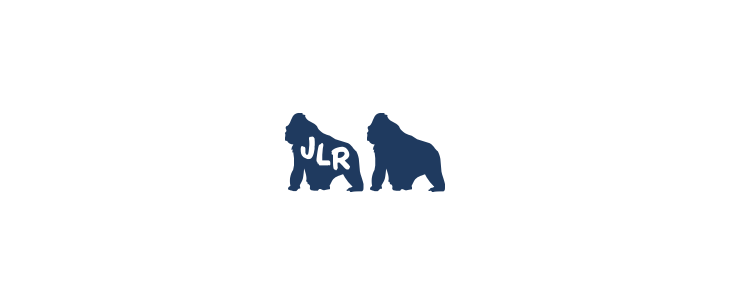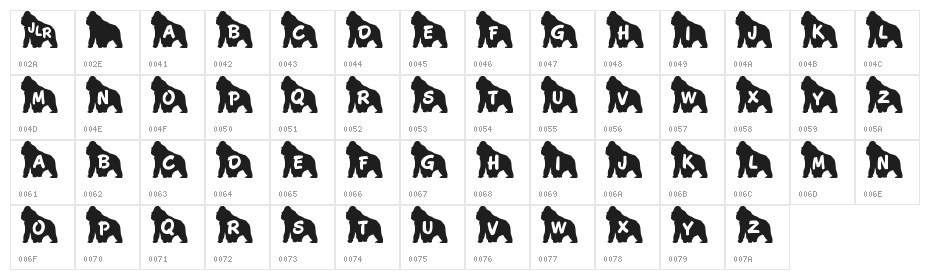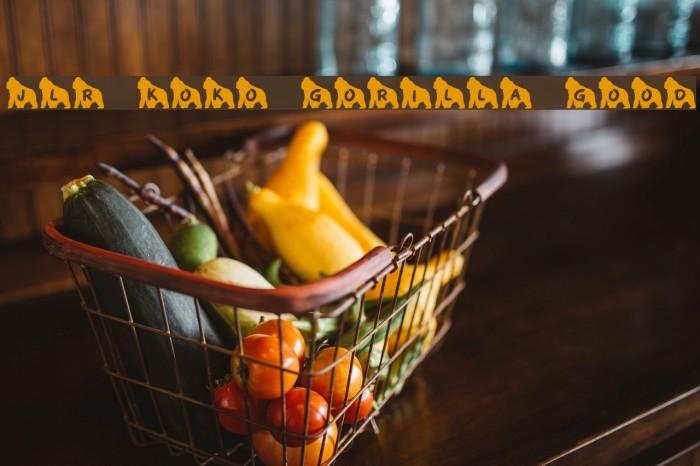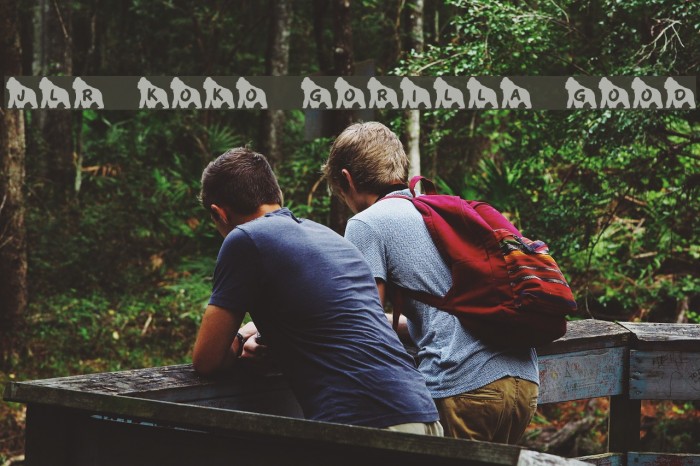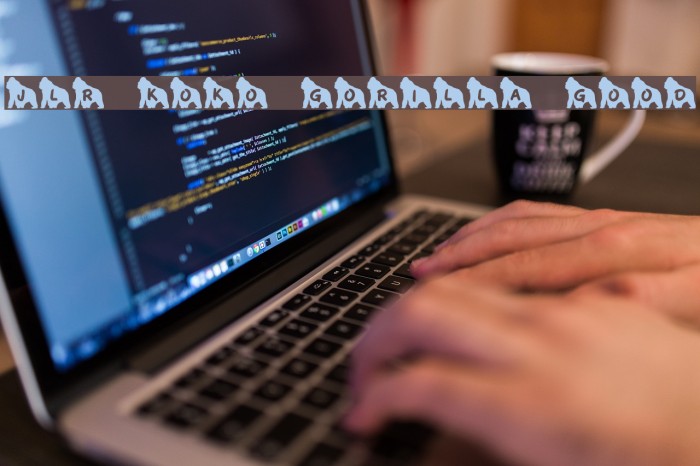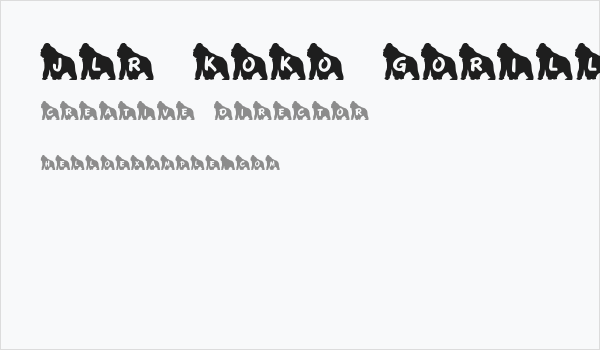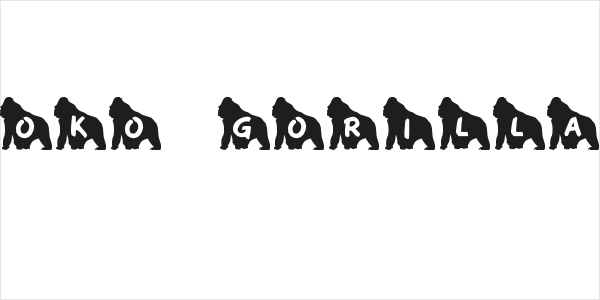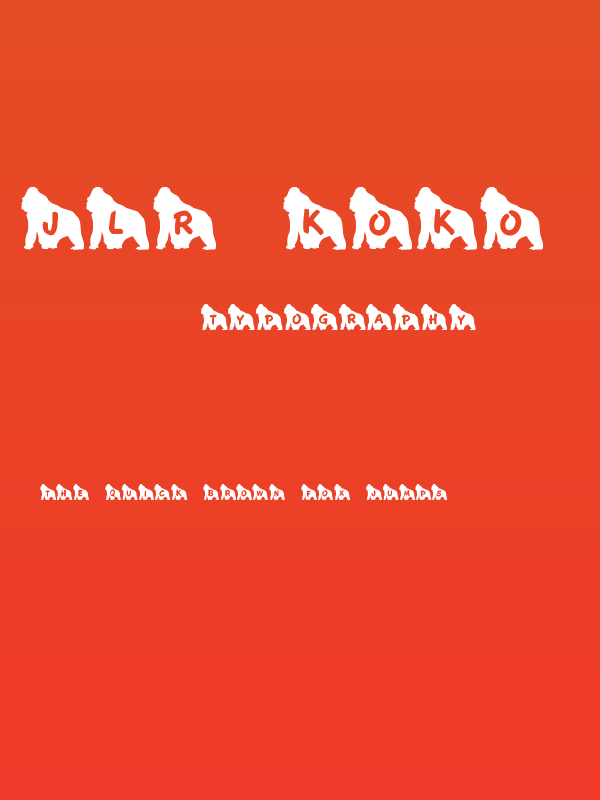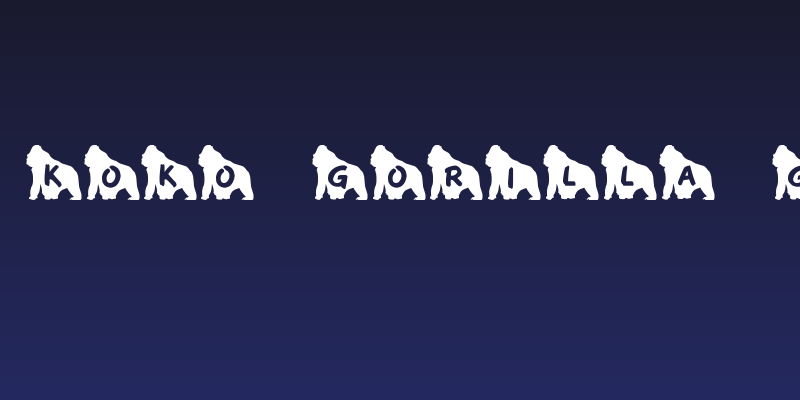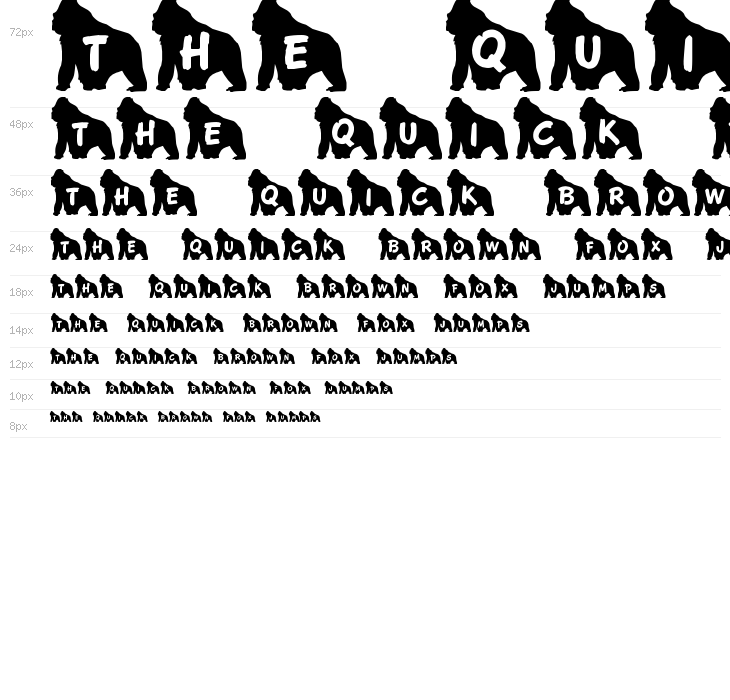
JLR Koko Gorilla Good Font
JLR Koko Gorilla Good Description
This unique and playful font features each letter embedded within the silhouette of a gorilla, creating a bold and eye-catching design. The uppercase and lowercase letters are consistent in style, maintaining the gorilla shape throughout. The font is highly decorative and is designed to stand out, making it ideal for projects that require a strong visual impact. The characters are evenly spaced, and the overall design is cohesive, with each letter seamlessly integrated into the gorilla form. This font is perfect for creative and fun projects, adding a touch of whimsy and originality.
| Use Case | Logos, Posters, Creative Titles |
| Proposed Projects | This font is perfect for children's books, playful branding, themed event posters, and any project that benefits from a fun and unique design element. |